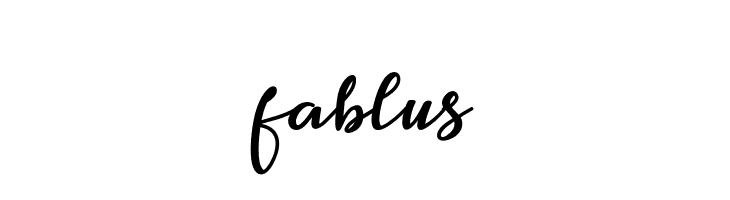
A whimsical and elegant script font with flowing, cursive letterforms.
An elegant and flowing script font with intricate swirls and loops.
An elegant and sophisticated cursive font with intricate swirls and flourishes.
Bold, playful handwritten script font.
A dynamic and elegant script font with flowing, cursive letterforms.
An elegant, flowing script font with graceful curves and loops.
An elegant, flowing script font with a handwritten appearance.
A flowing, cursive font with a natural handwritten style.
A bold, expressive handwritten font with fluid strokes and dynamic style.
A bold, italic handwritten font with dynamic and expressive strokes.
A sleek, modern italic font with elongated characters and consistent stroke width.
A clean, modern sans-serif font with tall, narrow letterforms.
A sleek, elegant script font with a modern twist and excellent readability.
A modern script font with elegant, upright characters and flowing lowercase letters.
A bold, italic serif font with dynamic slant and strong presence.
A bold serif font with sharp serifs and high contrast, ideal for impactful designs.
An elegant serif font with a refined italic style and high contrast strokes.
A classic serif font with elegant, elongated lines and a refined appearance.
An elegant script font with flowing, cursive strokes and graceful curves.
Handwritten cursive script font.
A bold, expressive script font with dynamic, flowing letterforms.
A bold, expressive script font with fluid strokes and dynamic curves.
A playful, handwritten-style font with rounded edges and a whimsical appearance.
A playful, handwritten font with smooth, rounded edges and a casual style.
A playful, handwritten font with bold, rounded strokes and a casual style.
A decorative font with autumn-themed leaf and tree embellishments.
A playful, handwritten font with a casual and friendly style.
A bold, graffiti-style font with a unique dripping effect.
Playful handwritten font with casual style.
Decorative handwritten script font.
An elegant, flowing script font with delicate, cursive letterforms.
A playful, hand-drawn font with tall, narrow letters and consistent stroke width.